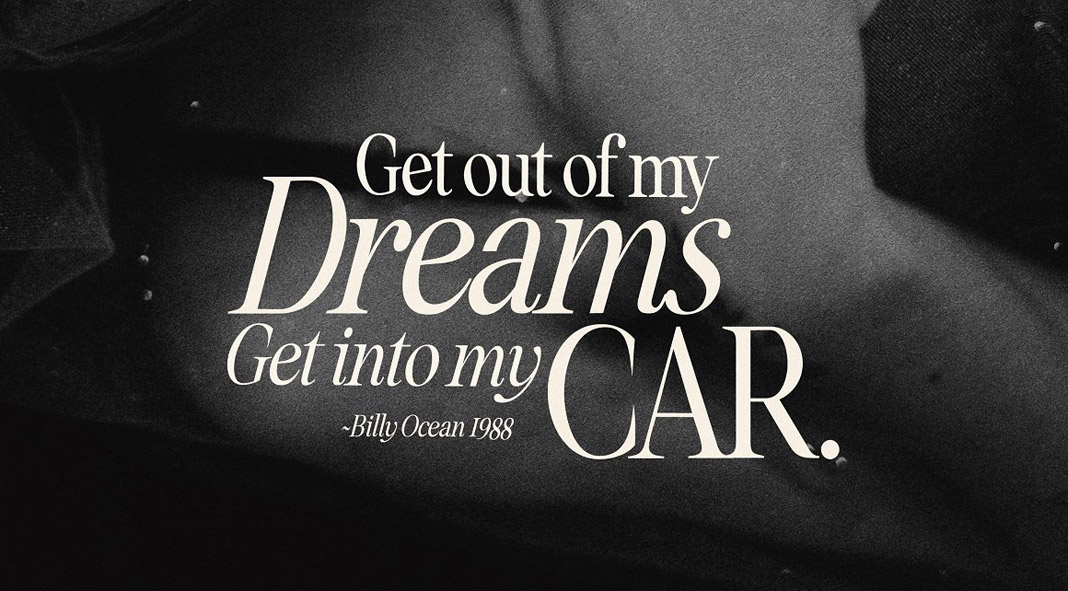
Let us introduce you to Seriously Nostalgic Serif, a classy eighties magazine-inspired serif font family.
Created by type designer Nicky Laatz, the Seriously Nostalgic Serif font is inspired by stylish eighties typography. Equipped with regular and condensed styles as well as italics, the family offers plenty of typographic features. You can mix and match them to create stunning effects. In addition, the Seriously Nostalgic Serif font comes with 28 free retro magazine Adobe Photoshop actions. Just click on the following link if you want to get further information about this unique typeface.